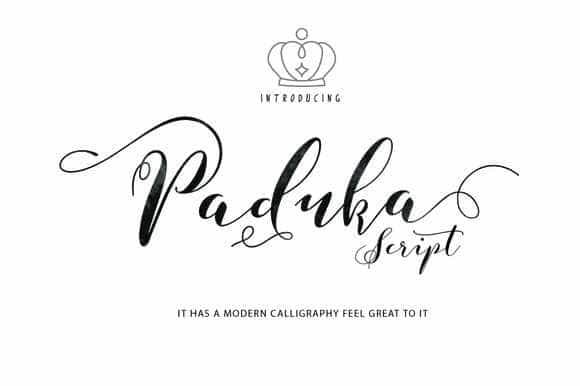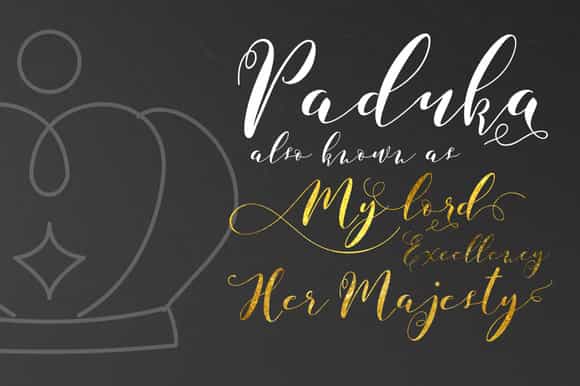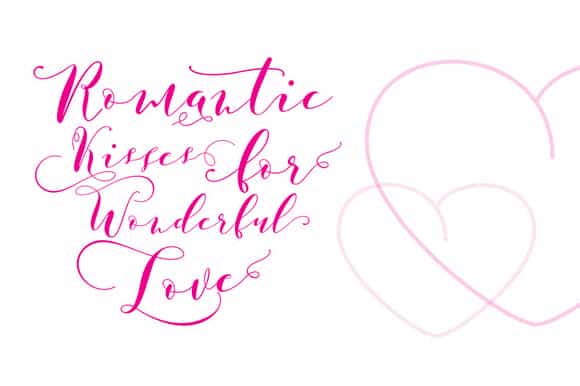
Paduka Script font is an extraordinary modern calligraphy font to be used in any kind of projects related to branding, stationery design, blog design and blog layout, advertisements, as well as wedding or any other special occasion invitation designs and even any kind of lettering needs be it personal or professional.